When it comes to modern design, typography plays a key role in shaping how your audience perceives your brand. One of the hottest trends today is exploring futuristic fonts design ideas that reflect innovation, technology, and forward-thinking aesthetics. Designers around the world are turning to futuristic fonts to create logos, websites, and campaigns that feel fresh, bold, and ahead of their time.
1. Futuristic Fonts Design Ideas: Bold Typography for Tomorrow
Typography is not just about letters—it’s about visual identity. Fonts set the tone of a brand, project, or campaign. Among the many styles available, futuristic fonts stand out because they evoke innovation, technology, and forward-thinking design.
In industries such as technology, gaming, fashion, and entertainment, futuristic fonts help brands establish a modern, cutting-edge image. A futuristic typeface instantly signals that a brand isn’t stuck in the past, but instead focused on tomorrow.
Recent design reports highlight a growing demand for modern and futuristic fonts because of their strong appeal in digital marketing, UI/UX, and branding.
2. Characteristics of Futuristic Fonts Design Ideas
So, what makes a font “futuristic”? While there’s no single formula, common traits include:
- Geometric shapes (triangles, circles, hexagons, straight lines)
- Unconventional glyphs (cuts, asymmetry, sharp angles)
- Minimal strokes with clean, modern curves
- Digital and sci-fi aesthetics like neon glow or holographic gradients
- Experimental spacing and modular constructions
These attributes create an atmosphere of innovation, sleekness, and mystery, ideal for brands that want to appear ahead of the curve.
3. Using Futuristic Fonts Design Ideas in Branding & Logos
a) Geometry & Symmetry
Using strong geometric forms—like triangles or sharp diagonals—can instantly modernize a typeface. Symmetry suggests precision and technology.
b) Negative Space & Abstract Cuts
Designers often remove parts of letters or add unexpected slices to create intrigue. This “implied form” engages the audience while looking distinctly modern.
c) Neon, Glitch & Holographic Effects
Adding glow, glitch, or holographic gradients makes fonts feel digital and cyberpunk-inspired. This works well in gaming, esports, or music industry visuals.
d) Minimalist & Clean Approaches
Not all futuristic fonts are loud. Some rely on monoline strokes, sharp spacing, and sleek construction to deliver a minimalist modern look.
e) Variable & Adaptive Typography
Variable fonts, which adjust width, weight, or slant dynamically, embody the idea of adaptability—a core futuristic trait.
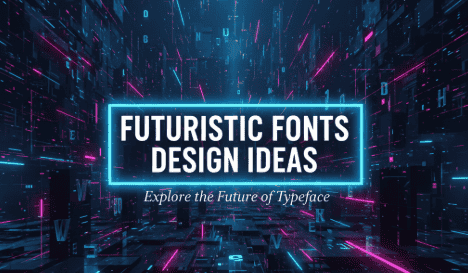
4. Practical Applications of Futuristic Fonts
Branding & Logos
A futuristic font in a logo instantly sets a company apart as innovative. Perfect for tech startups, electronics, AI solutions, or space-inspired products.
UI/UX & Websites
Modern websites use futuristic fonts in hero sections, call-to-actions, and headers to grab attention. Paired with interactive effects, they shine in digital interfaces.
Motion Graphics & Entertainment
In sci-fi movies, gaming titles, or streaming intros, futuristic fonts deliver cinematic impact. Adding animation, glitch, or metallic shine further enhances them.
Print & Advertising
Posters, packaging, and event flyers for gadgets, music festivals, and fashion brands often use futuristic typefaces to project modernity and boldness.
5. Pitfalls to Avoid with Futuristic Typography
While futuristic fonts are striking, here are mistakes to avoid:
- Legibility issues: Over-stylized designs may sacrifice readability.
- Overuse of effects: Neon, glitch, or glow should be balanced.
- Style mismatch: Don’t pair futuristic fonts with rustic or vintage themes.
- Ignoring licensing: Always check font licenses for commercial projects.
6. Futuristic Font Picks from Edric Studio
At Edric Studio, we are committed to making fonts that balance bold style with usability. Here are some of our actual fonts that embody futuristic or modern aesthetics—perfect for your cutting-edge design projects:
- Verwalter Futuristic Font — A display, decorative techno-modern font. Verwalter includes three style variations: Modern, Monospaced Laser, and Gradient 3D. It supports multilingual characters, so it’s great for logos, signage, or branding in tech-oriented industries.
- Blacked Futuristic Sans Serif Font — A strong sans serif display font with many ligatures and alternates. Clean, powerful, modern. It’s PUA encoded, with OTF, TTF, and WOFF formats included. Ideal for headline, poster, or any branding design that needs a bold futuristic vibe.
- Counter Stream Display Font — (Browse under display styles) A display font style in the “display” section that carries modern & angular traits; good for headlines, posters, or large format designs.
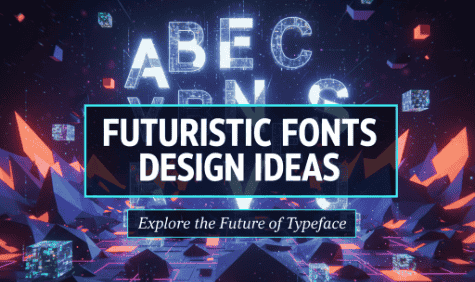
7. Conclusion: Staying Ahead with Futuristic Fonts
Typography evolves alongside culture and technology. By experimenting with geometric forms, abstract cuts, clean minimalism, and digital effects, designers can create fonts that truly look like the future.
Whether you’re building a brand identity, designing a futuristic website, or creating motion graphics, choosing the right typeface is crucial.